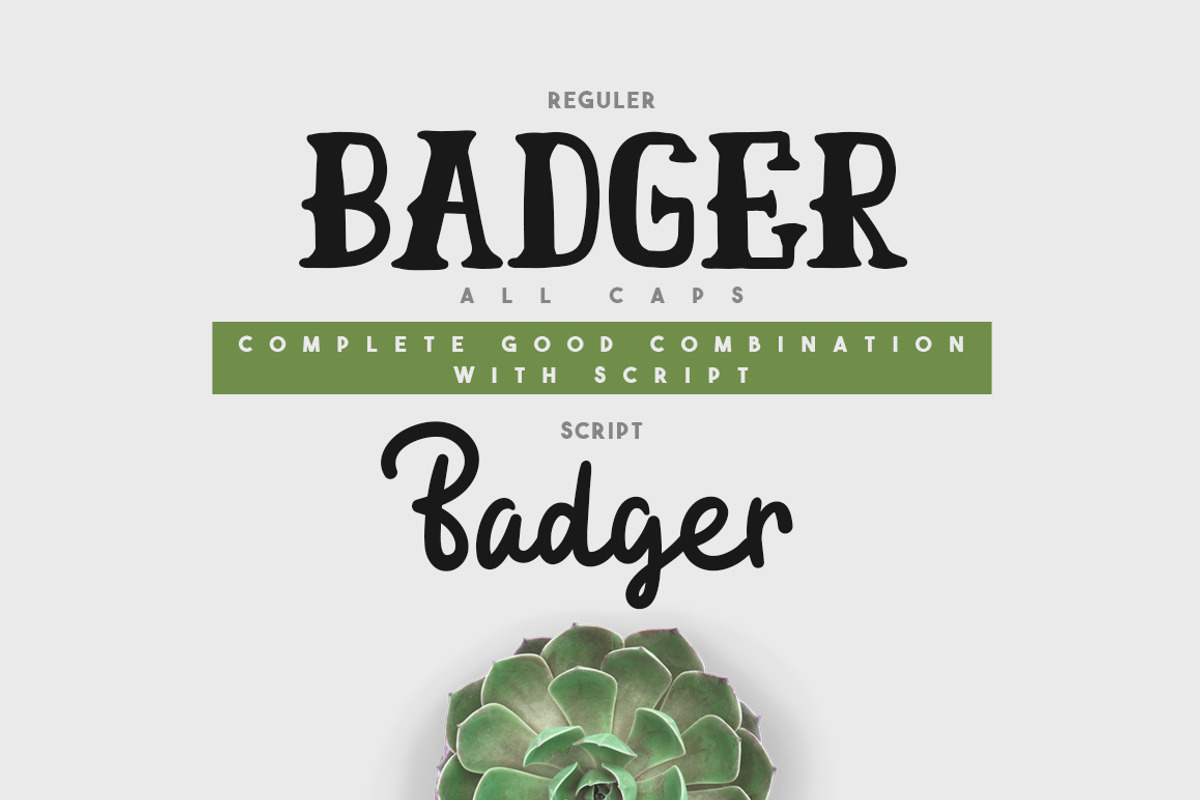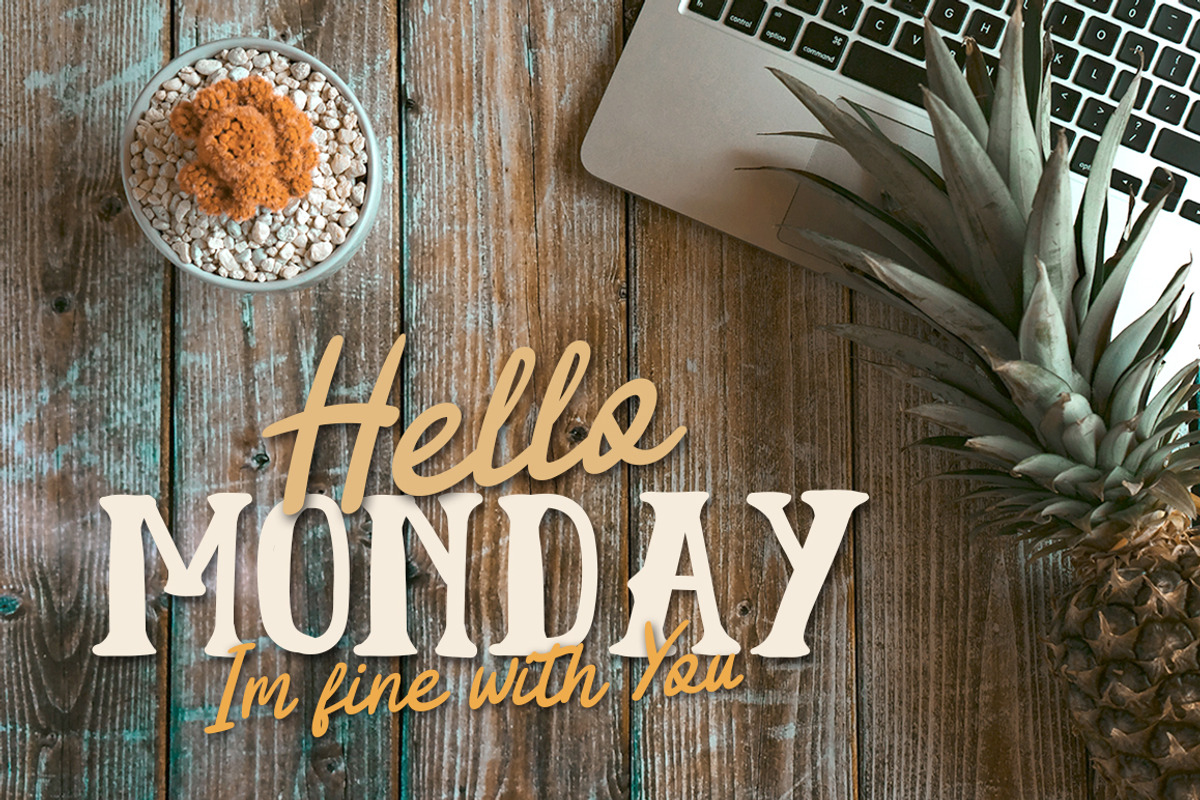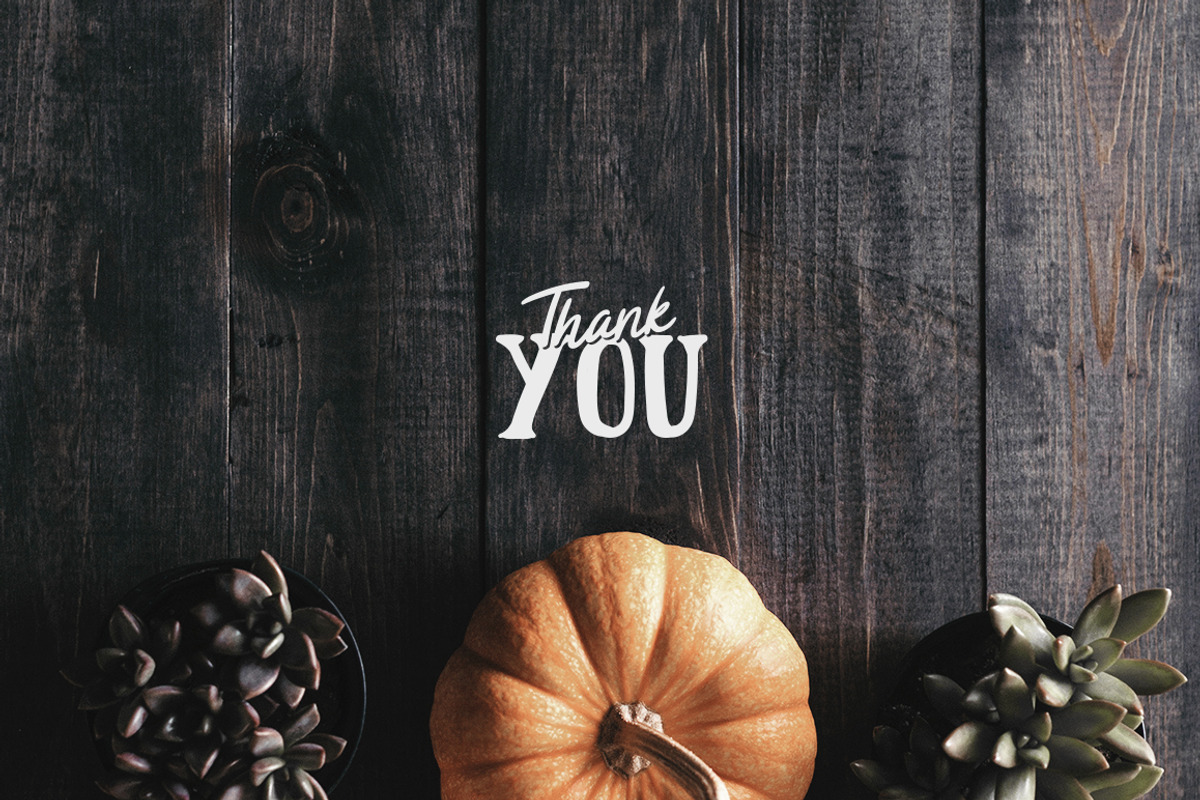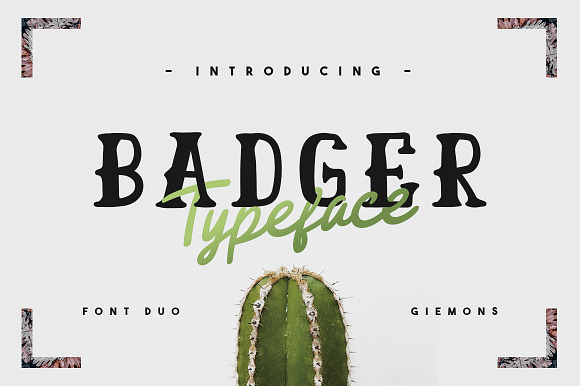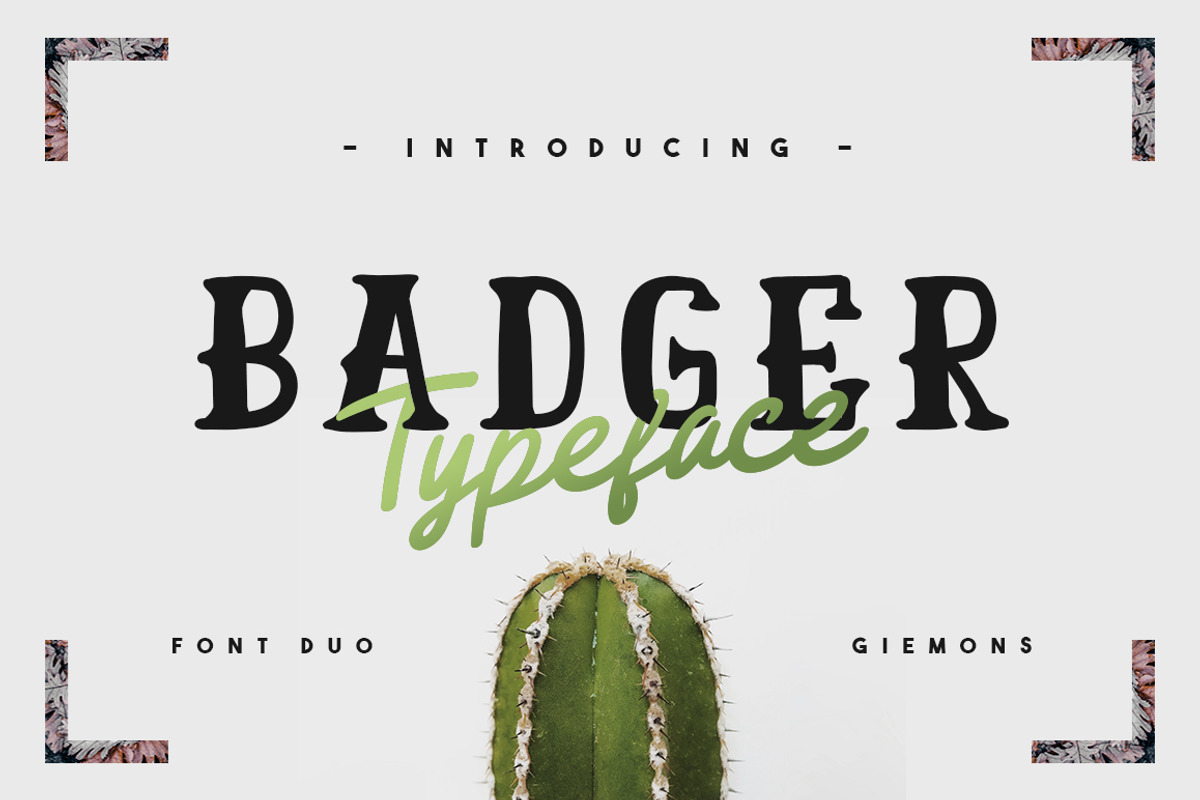
Badger Script BADGER TYPEFACE can make it easier to convey the message in your design. Use for awesome display, labeling, clothing, movie sceen, poster, movie title, gigs, album covers, logos, and much more.